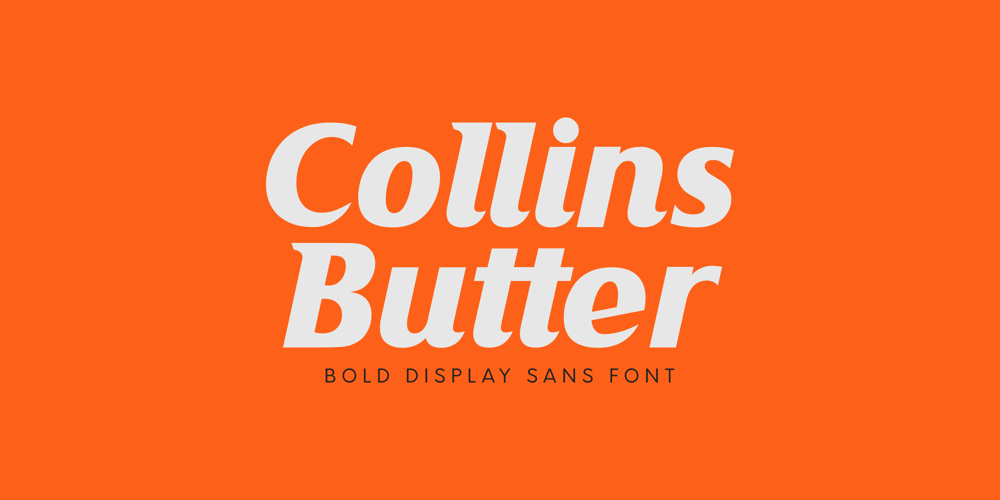
Collins Butter Hollow
Collins Butter Hollow font
Collins Butter Hollow Font Family was designed by Ibnu Utomo and published by Omotu. Collins Butter Hollow contains 2 styles and family package options. Collins Butter is a display sans font. Comes with 2 fonts family, solid and hollow. Great for logotype, branding, packaging design, poster design, website / display, editorial, headline, and more.Whats Include? Uppercase and lowercase characters Supports international languages Opentype features: alternates and ligatures. Accessible in the Adobe Illustrator Glyphs panel, or under Stylistic Alternates in the Adobe Photoshop OpenType menu, Adobe InDesign, Corel Draw, even work on Microsoft Word